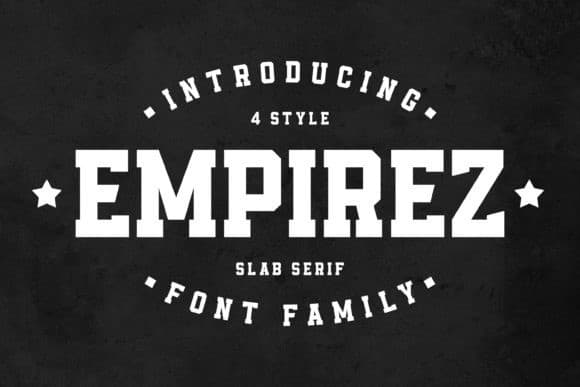
Empirez Slab Serif Font
Empirez Font is a modern Slab Serif Font design to provide a modern appearance with a retro style, This font was created with usability and clarity in mind.
Empirez is a chunky and bold slab serif font that looks dynamic and timeless. It will look its best in sports- or gaming-themed projects.
Each character was carefully created and is guaranteed to make your headlines stand out.